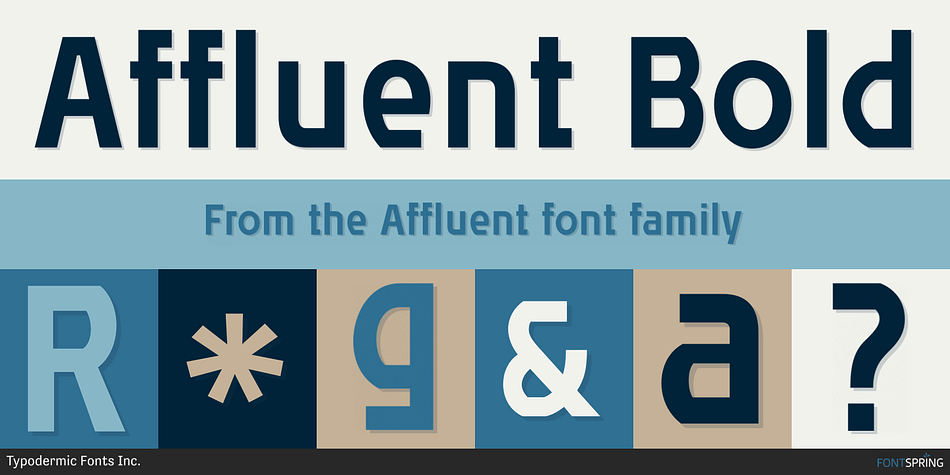
Affluent Bold
Affluent is a sans serif font family. This typeface has six styles and was published by Typodermic Fonts Inc.
Looking for a typeface that exudes intelligence, sophistication, and technical know-how? Look no further than Affluent—the sleek, modern sans-serif typeface that blends cutting-edge technology with scientific elegance.
One of the key features of Affluent is its unique mix of unconstrained vertical lines and perfectly flat, quantized near-horizontal lines. The result is a design that feels both dynamic and precise—perfect for conveying complex technical information with ease.
Whether you’re designing materials for a military organization, a scientific research institute, or a cutting-edge technology company, Affluent is the font that will help you make your mark. With four distinct styles to choose from—Regular, Semi-Bold, Bold, and Italic—you can customize your design to perfectly match your brand’s personality and message.
Affluent comes in Regular, Semi-Bold, Bold, and Italic styles. Most Latin-based European, Greek, and some Cyrillic-based writing systems are supported, including the following languages. Afaan Oromo, Afar, Afrikaans, Albanian, Alsatian, Aromanian, Aymara, Bashkir (Latin), Basque, Belarusian (Latin), Bemba, Bikol, Bosnian, Breton, Bulgarian, Cape Verdean, Creole, Catalan, Cebuano, Chamorro, Chavacano, Chichewa, Crimean Tatar (Latin), Croatian, Czech, Danish, Dawan, Dholuo, Dutch, English, Estonian, Faroese, Fijian, Filipino, Finnish, French, Frisian, Friulian, Gagauz (Latin), Galician, Ganda, Genoese, German, Greek, Greenlandic, Guadeloupean Creole, Haitian Creole, Hawaiian, Hiligaynon, Hungarian, Icelandic, Ilocano, Indonesian, Irish, Italian, Jamaican, Kaqchikel, Karakalpak (Latin), Kashubian, Kikongo, Kinyarwanda, Kirundi, Komi-Permyak, Kurdish (Latin), Latvian, Lithuanian, Lombard, Low Saxon, Luxembourgish, Maasai, Macedonian, Makhuwa, Malay, Maltese, Maori, Moldovan, Montenegrin, Ndebele, Neapolitan, Norwegian, Novial, Occitan, Ossetian (Latin), Papiamento, Piedmontese, Polish, Portuguese, Quechua, Rarotongan, Romanian, Romansh, Russian, Sami, Sango, Saramaccan, Sardinian, Scottish Gaelic, Serbian, Serbian (Latin), Shona, Sicilian, Silesian, Slovak, Slovenian, Somali, Sorbian, Sotho, Spanish, Swahili, Swazi, Swedish, Tagalog, Tahitian, Tetum, Tongan, Tshiluba, Tsonga, Tswana, Tumbuka, Turkish, Turkmen (Latin), Tuvaluan, Uzbek (Latin), Ukrainian, Venetian, Vepsian, Võro, Walloon, Waray-Waray, Wayuu, Welsh, Wolof, Xhosa, Yapese, Zapotec Zulu and Zuni.